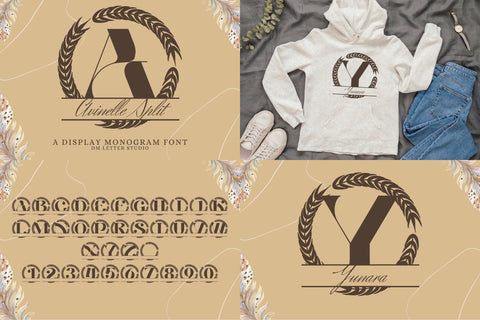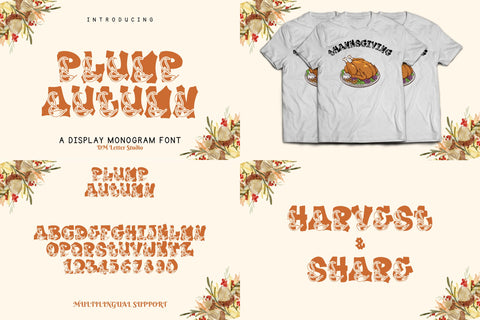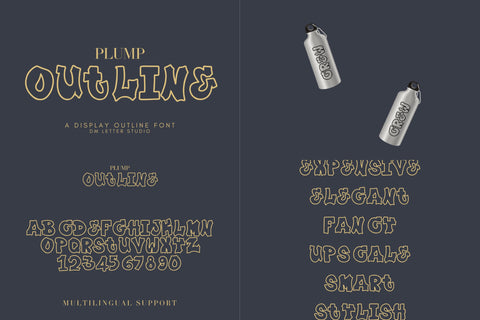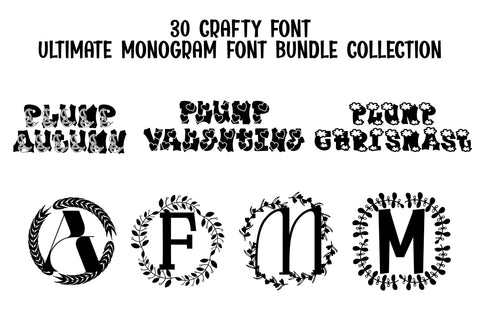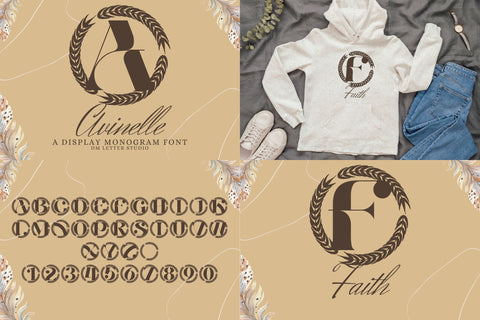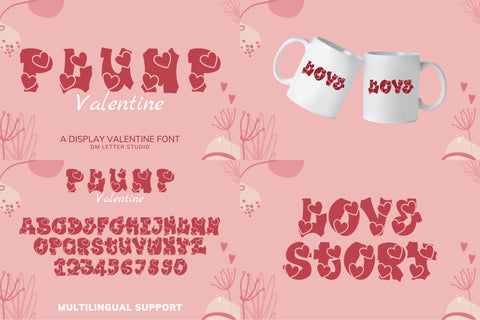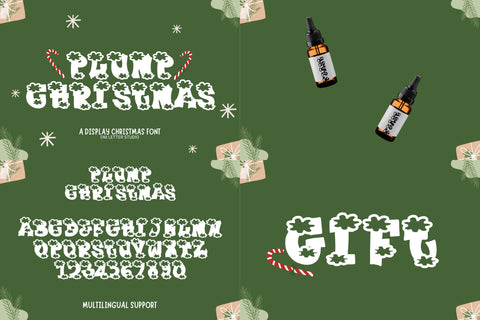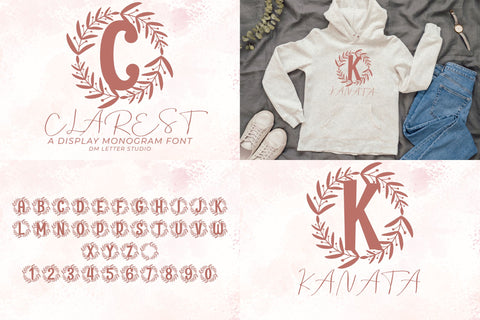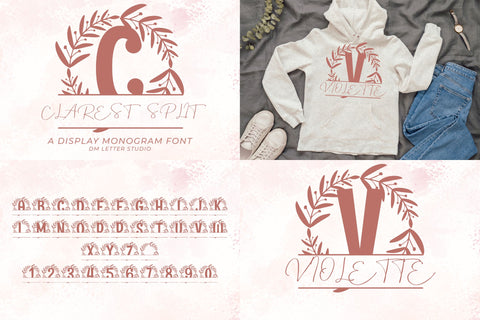
Mega Value Monogram + Holiday Font Bundle
Mega Value Monogram + Holiday Font Bundle is your all-in-one toolkit for elegant personalization and high-selling seasonal designs. You get a full set of refined monogram fonts in regular + split styles, plus four bold “Plump” holiday favorites for fast promos. Because the collection covers classic crests, clean initials, and cozy seasonal headlines, you can build complete product lines without switching packs. Use it for wedding suites, boutique logos, keepsake gifts, wax seals, stationery, labels, premium packaging, stickers, cards, and holiday campaigns. As a result, your shop can launch more listings with a consistent look and higher perceived value.
Fonts included in this bundle
Monogram + Split pairs
• Avinelle Monogram Font + Avinelle Split Monogram Font
• Clarest Monogram Font + Clarest Split Monogram Font
• Crestoria Monogram Font + Crestoria Split Monogram Font
• Elenford Monogram Font + Elenford Split Monogram Font
• Finaris Monogram Font + Finaris Split Monogram Font
• Finoria Monogram Font + Finoria Split Monogram Font
• Fleurwyn Monogram Font + Fleurwyn Split Monogram Font
• Lettravia Monogram Font + Lettravia Split Monogram Font
• Marquessa Monogram Font + Marquessa Split Monogram Font
• Mireth Monogram Font + Mireth Split Monogram Font
• Monarchine Monogram Font + Monarchine Split Monogram Font
• Nuvoria Monogram Font + Nuvoria Split Monogram Font
• Ornalis Monogram Font + Ornalis Split Monogram Font
Holiday display favorites
• Plump Autumn
• Plump Outline
• Plump Valentine
• Plump Christmas
Fast layouts that boost your listings
Start with a monogram as the hero: choose a clean initial for modern branding or a crest style for a formal look. After that, use the Split Monogram to place a name or date across the center for instant personalization. Because monograms love white space, keep the layout airy and add details in a simple serif or neat sans. In addition, switch to Plump Valentine / Autumn / Christmas for seasonal headlines, then keep product details in a clean supporting font. Finally, save a few repeatable palettes like sage & ivory, champagne & charcoal, cherry & cream, or evergreen & gold to keep your shop looking cohesive.
Creative uses and quick wins
• Wedding monograms, invitations, menus, and table number
• Boutique logos, brand seals, and product badges
• Wax seals, ribbon tags, and keepsake boxes
• Labels, stickers, tissue wraps, and thank-you cards
• Holiday promos, sale banners, and seasonal product launches
• POD merch: tees, totes, mugs, ornaments, and gift tags
• Uppercase, lowercase, numbers, punctuation (per font)
• Monogram fonts in regular + split styles for easy personalization
• Curves tuned for foil, emboss, deboss, engraving, laser, vinyl, DTF, and sublimation
Design tips for best results
Keep the personalization line short so the initial stays dominant. Also, increase tracking slightly on small tags and stickers for cleaner readability. For a premium look, add a thin inner stroke or soft shadow behind monograms on light backgrounds. When using Plump holiday fonts, keep headlines short and give them breathing room. Finally, export at 300 DPI for print and 2× size for web so edges stay smooth everywhere.